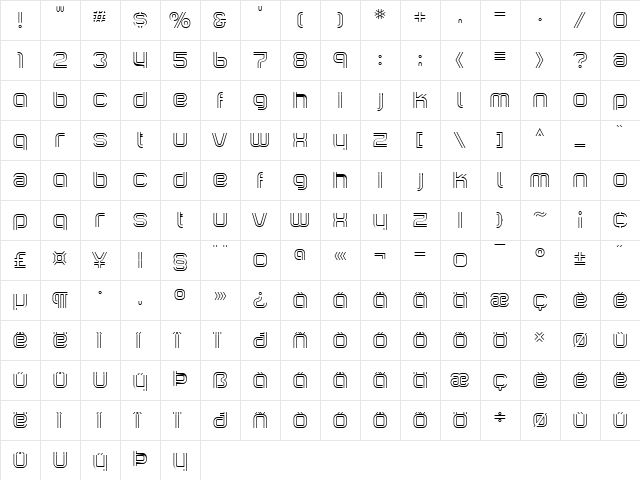
Incopins Clusters Bi Regular
| Foundry | Peter Wiegel |
| Designer | Peter Wiegel |
Design Context for Incopins Clusters Bi Typeface
Incopins Clusters Bi is a composed and adaptable typeface that performs quietly and consistently across a wide range of design contexts.